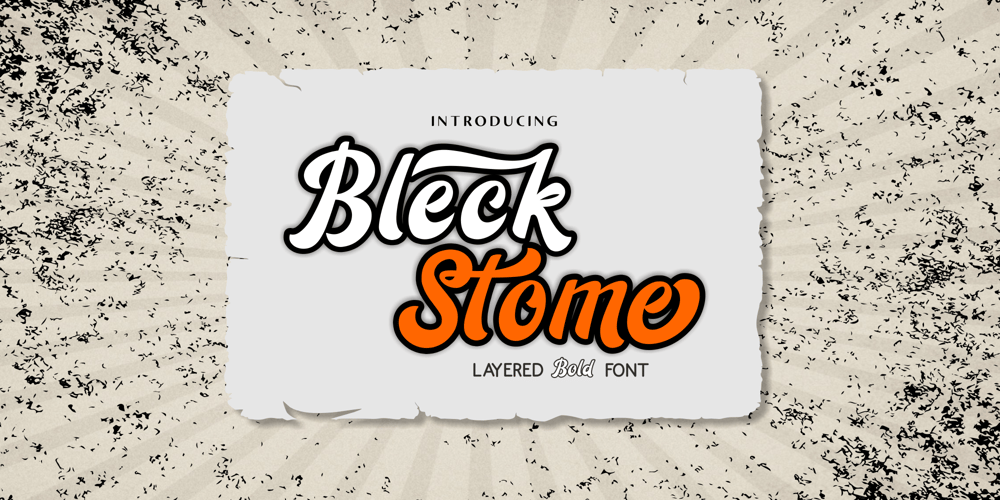
Bleck Stome Font Family was designed by Murtadha bin Sulaiman and published by Malindo Creative. Bleck Stome contains 2 styles and family package options. Introducing Bleck Stome Is a Layered fonts of retro style, with Bleck Stome Give your typography design a touch of retro style, Bleck Stome is one of hand lettering project. It was very inspired from the famous retro typography designs,Bleck Stome also comes with extra Extruded Font version. So you don’t need extra effort for create an extrude effect for this font. This mean it will saves your time.With Bleck Stome Font it suitable for Logotype, posters, business cards, merchandise, wedding invitations, greeting cards, banners blogs, clothing, water-based paint designs / prints, correspondence, quotes and more!.Bleck Stome Comes With 480+ Glyphs and OpenType Features are also added to this font.The Features includes: Stylistic Alternates, Swashes, Ligatures, and Stylistic Set. You can pick the alternate for all styleBleck Stome has given PUA encoded (fonts with special code).If you have any questions,please contact me at: malindocreative@gmail.com. Feel free to contact me, I am happy to help you.To enable the OpenType Stylistic alternates, you need a program that supports OpenType features such as, Adobe Indesign ,Adobe Illustrator CS & CorelDraw X6-X7, Microsoft Word 2010 or later versions.How to access alternate glyphs? you can see it on this link goo.gl/1vy2fvThank you for your kindness and support,it’s not hidden,what you see in preview is what it contains,Hopefully Useful, Good Luck For You, And Love You All.